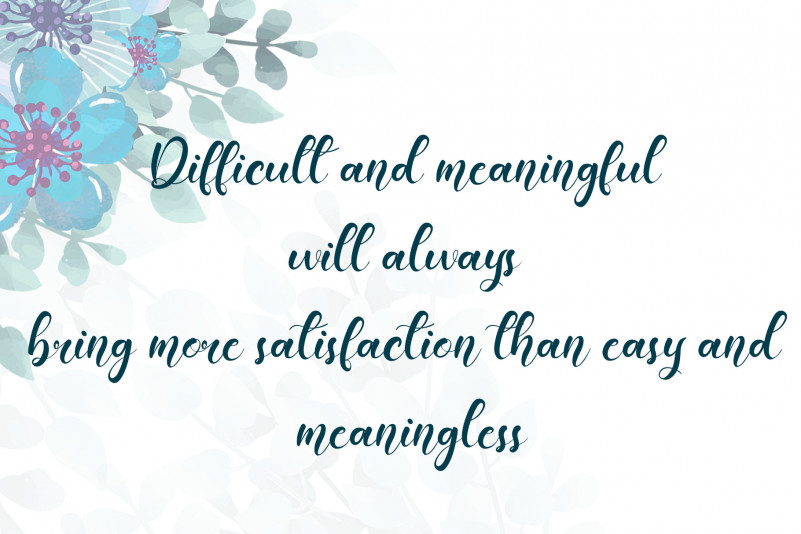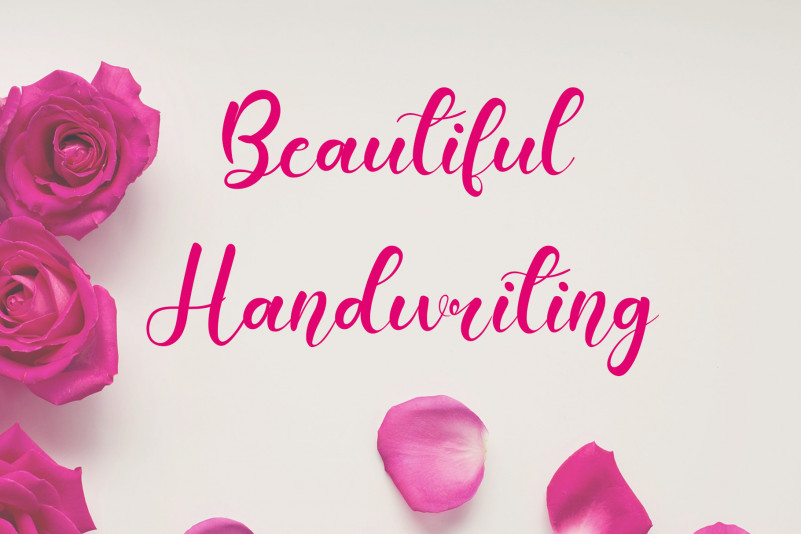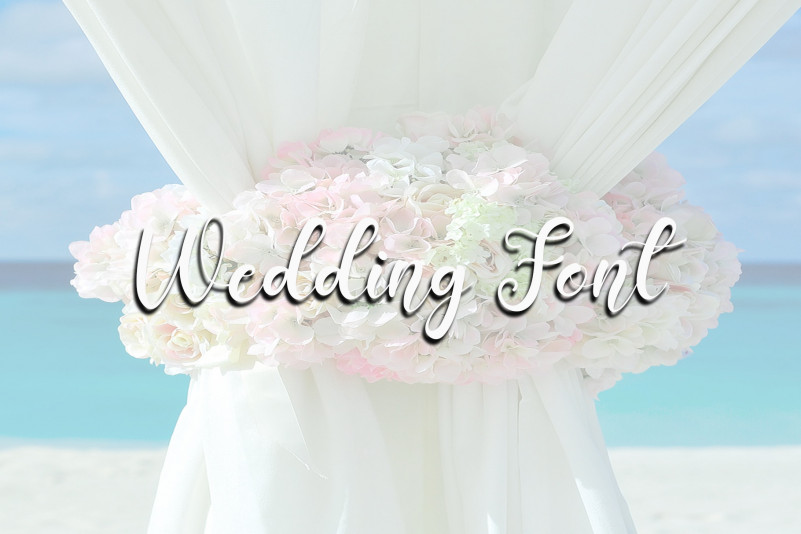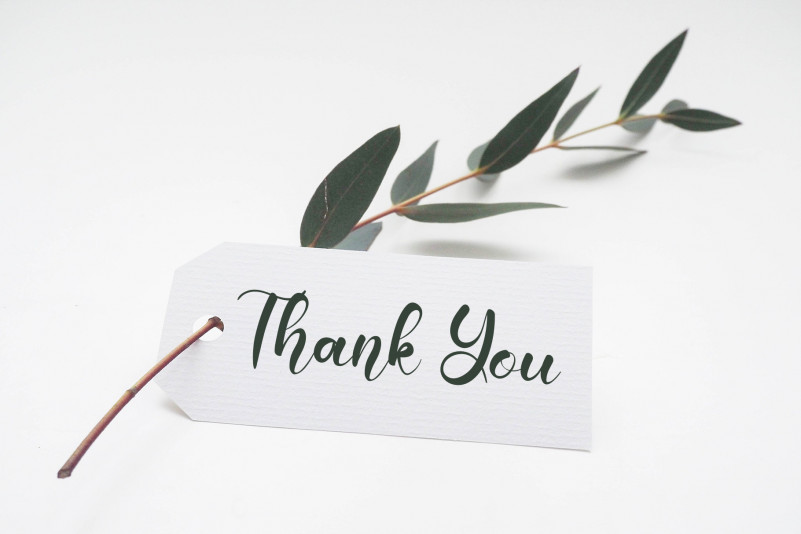
Fancy Signature Script Font
This is a romantic and sweet calligraphy typeface with characters that dance along the baseline. It will add a luxury spark to any design project that you wish to create!